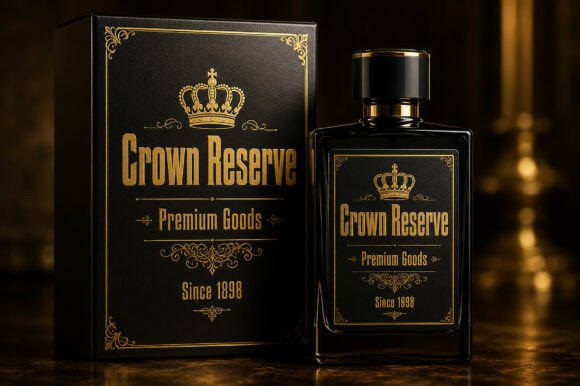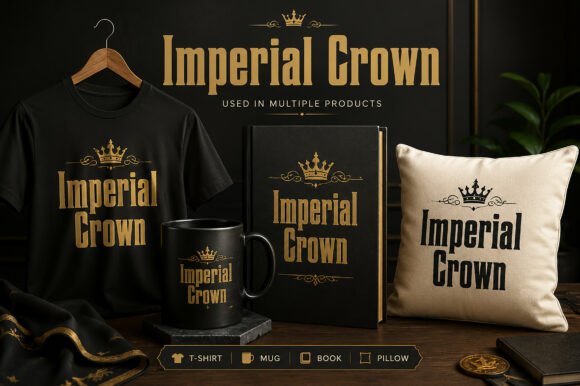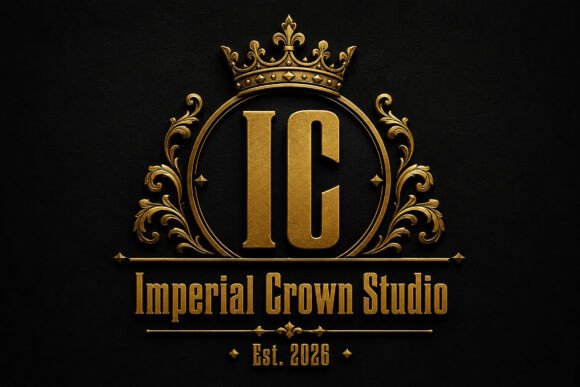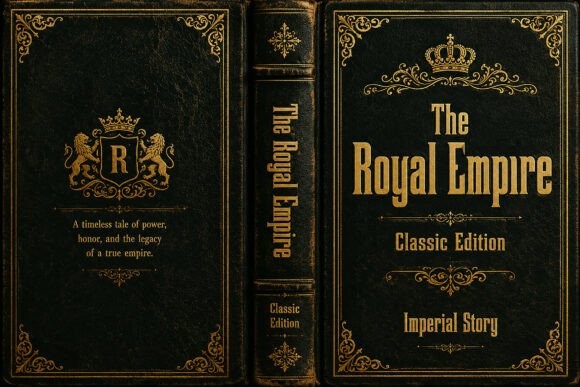
Introduction to Imperial Crown Font
Command an undeniable aura of majesty, heritage, and luxury with Imperial Crown, a stately royal serif font engineered for high-prestige branding centerpieces.
Built upon a tall, condensed, and powerful Roman architecture, this typeface strikes a commanding posture with its sturdy vertical stems and precise, sharp-edged serifs Its elegant proportions and refined lines are designed to evoke an immediate sense of elite authority, timeless tradition, and premium craftsmanship.
Key Features of Imperial Crown Font